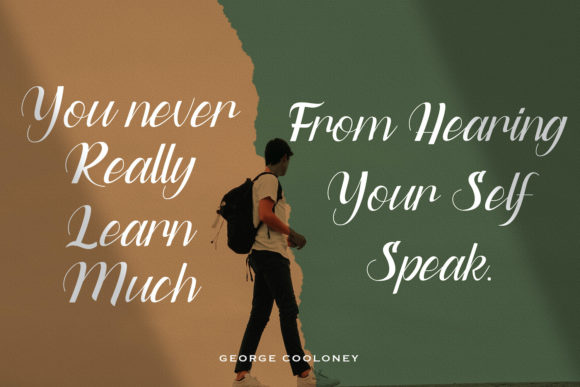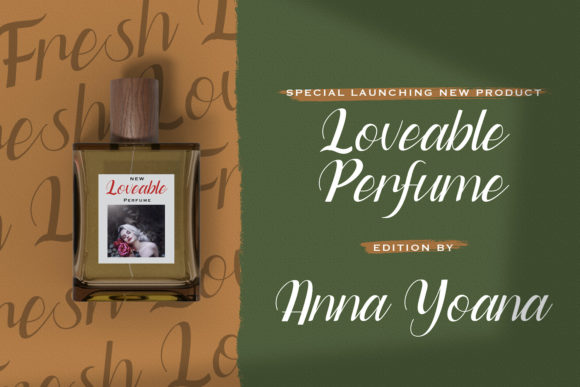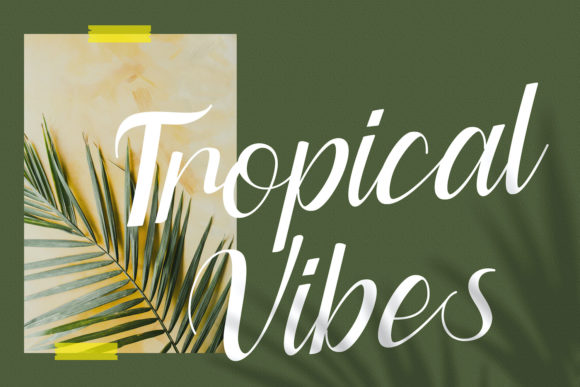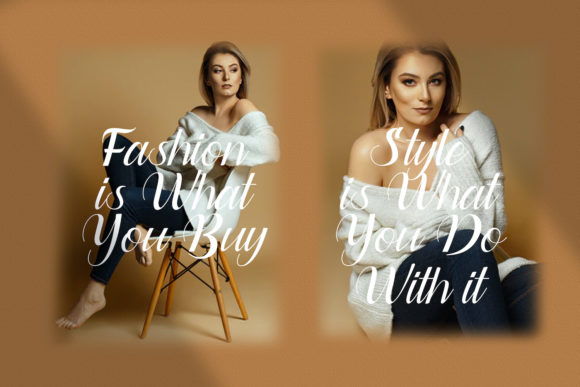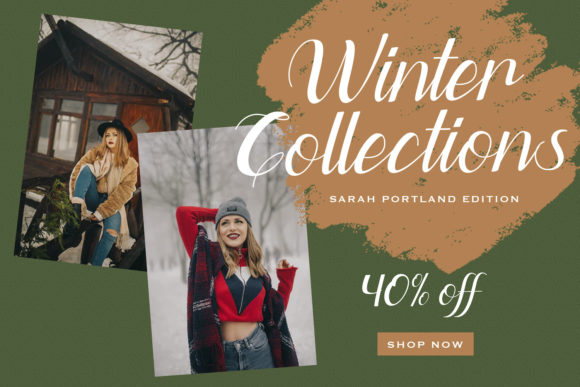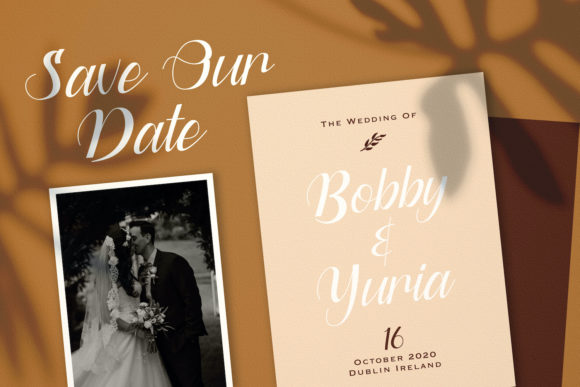
The Elegant Dianora Font: A Designer’s New Best Friend
I still remember the design project that led me to discover the stunning Dianora Font. I was working on a wedding invitation suite, and my client had a very specific vision: elegant, sophisticated, and with a touch of whimsy. As I scrolled through font after font, nothing seemed quite right – until I stumbled upon Dianora. Its charming script and effortless flow instantly captured the essence of what I was trying to create. In this article, I’ll share my love for this beautiful font, its features, and how to make the most of it in your designs.
Here’s what makes Dianora Font stand out:
- ✨ Elegant and charming script style that’s perfect for a variety of design projects
- ✅ Varying baseline that adds a touch of sophistication
- ✅ Smooth lines and gorgeous glyphs that make your designs shine
- ✅ Stunning alternates that give you plenty of creative options
While Dianora is a fantastic font, it’s not without its quirks:
- ⚠️ Some users might find the font a bit finicky when it comes to kerning – but this is easily adjustable in most design software
- 🤔 The font’s elegance might not be the best fit for very bold or edgy designs
The Story Behind Dianora Font
Dianora Font was designed with the goal of creating a beautiful, elegant script font that would evoke the feeling of classic calligraphy. The designer aimed to craft a font that would be versatile enough to use in a wide range of design projects, from wedding invitations to branding and packaging. With its varying baseline, smooth lines, and gorgeous glyphs, Dianora Font is a true masterpiece of typographic design.
| What type of designs is Dianora Font best suited for? | Dianora Font is perfect for a wide range of design projects, including wedding designs, invitations, branding, packaging, and more. |
| Is Dianora Font easy to read? | Yes, Dianora Font is designed to be elegant and legible, making it easy to read in a variety of contexts. |
| Does Dianora Font come with OpenType features? | Yes, Dianora Font features a range of OpenType features, including glyphs, stylistic alternates, and more. |